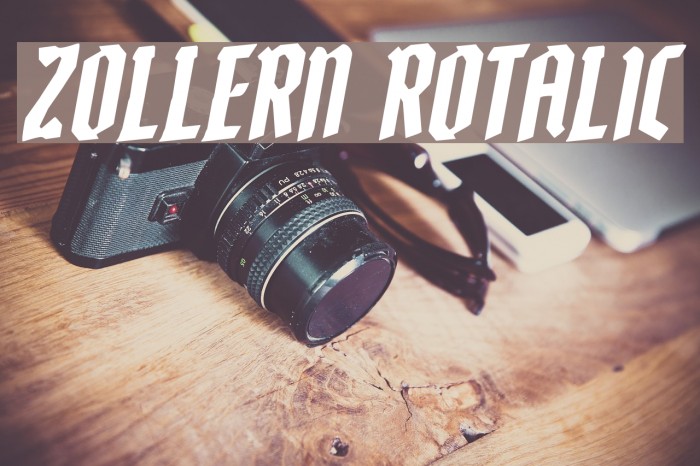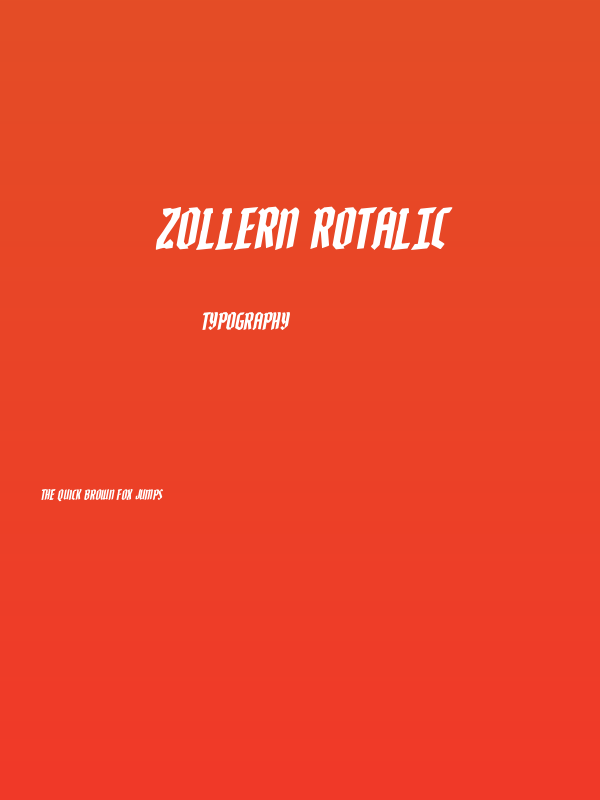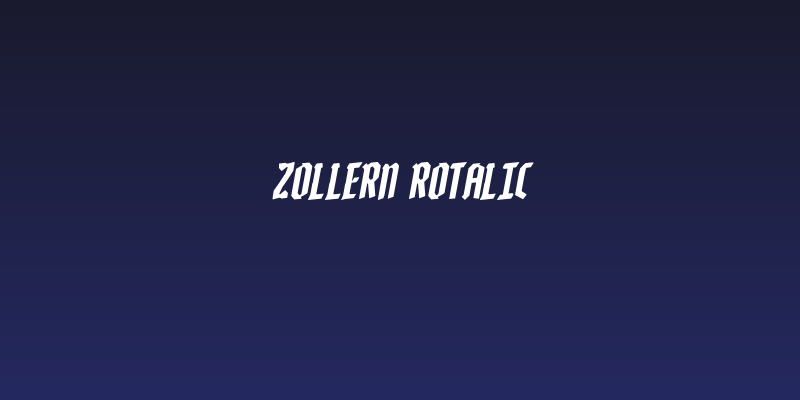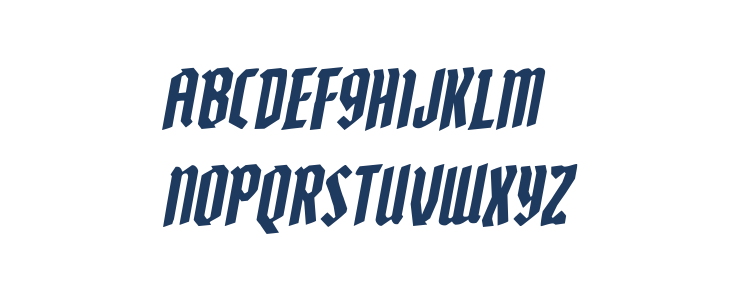
Zollern Rotalic Font
Zollern Rotalic Description
This font showcases a bold and dynamic style with a strong presence. The characters are sharply angled, giving a sense of movement and energy. The uppercase letters are particularly striking, with a consistent slant that adds to the overall impact. The numbers and special characters maintain this bold aesthetic, ensuring uniformity across all elements. The font's design is reminiscent of traditional blackletter styles but with a modern twist, making it suitable for contemporary applications. Its strong lines and sharp edges make it ideal for attention-grabbing headlines or logos.